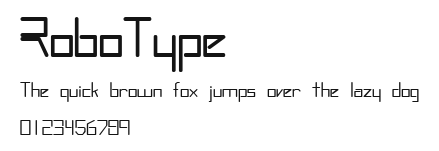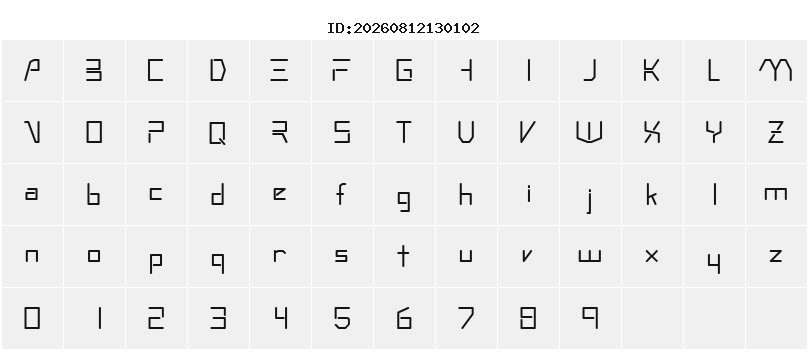
RoboType Preview
About RoboType.ttf
RoboType.ttf is a modern, elegant sans-serif font designed for ultimate readability and visual harmony. Perfect for branding, headlines, web design, and print materials.